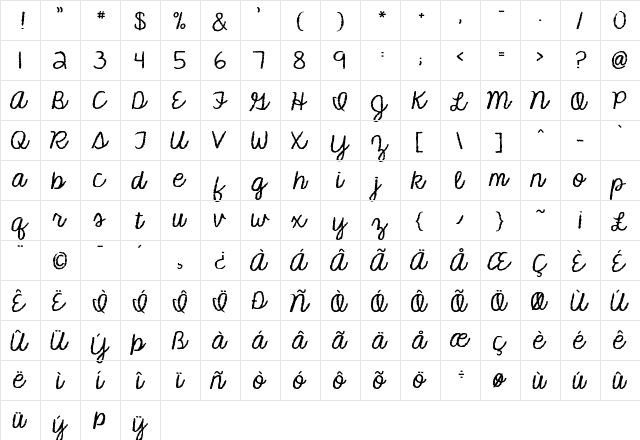
KG Makes You Stronger Regular
Design Context for KG Makes You Stronger Typeface
KG Makes You Stronger is a composed and adaptable typeface that performs quietly and consistently across a wide range of design contexts.